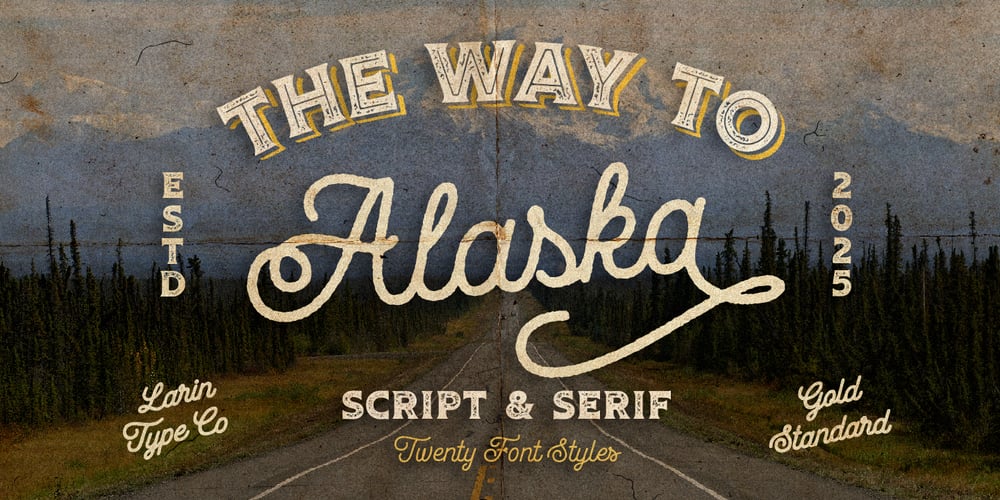
Way to Alaska Font Family was designed by Pavel Larin and published by Larin Type Co. Way to Alaska contains 20 styles and family package options. Way to Alaska this is a vintage font collection inspired by old signboards, labels and banners. This collection includes 20 font styles – Serif has a regular, rough, inline, inline rough, stamp, halftone, inline stamp, shadow, also cores also have a separate style for greater customization. Script has a regular, rough, stamp, halftone style. The script font includes 4 styles (regular, rough, bold, bold rough) and it includes a lot of alternates for Uppercase and Lowercase.